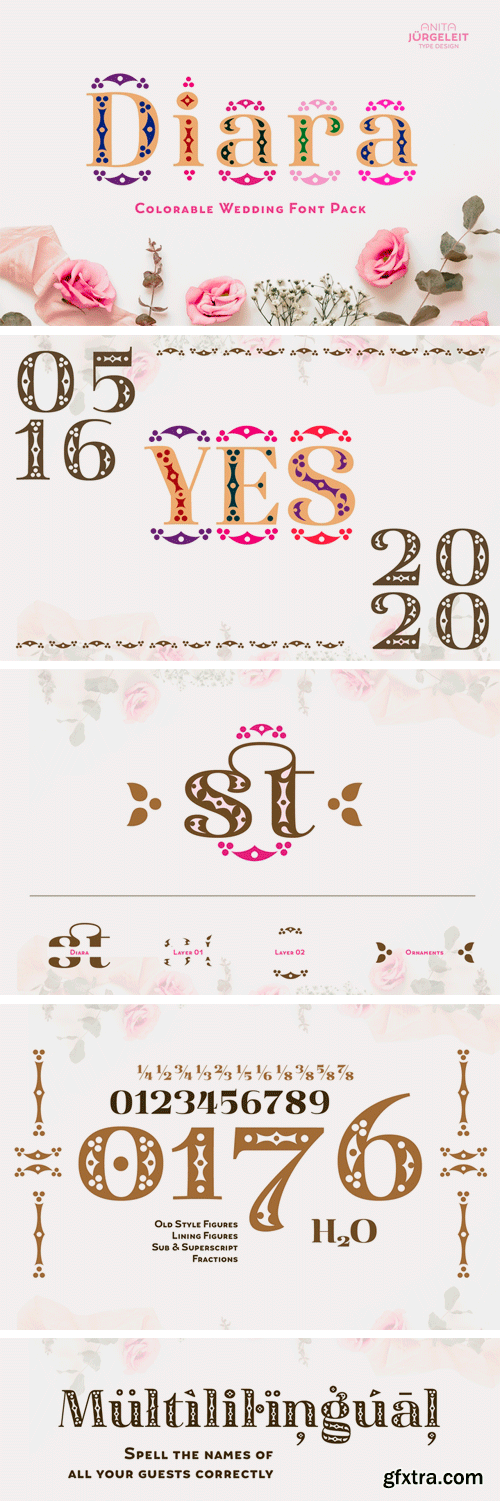
Diara Wedding Font Package is the fresh and precious must-have? for the most important day in your life. Change the color? of Diara and add or delete elements and ornaments all by yourself. That's so easy by using the layer fonts in this package. There are so many design possiblities which will add all the precious touch that you deserve on your special day. Use it for all design elements like wedding invitation, stationery, table cards, thank you note, the book of your honeymoon pictures and even the future announcement of your baby.
Combine it with floral designs, jewelry or maybe some indie fancy-wancy colors... Diara will always look great and outstanding. Whether you use it for print or social media like Instagram, Facebook or Twitter... your posts are going to look awesome. On top, you'll get an complementary small caps font for subtitles and short texts: Diara Umba.